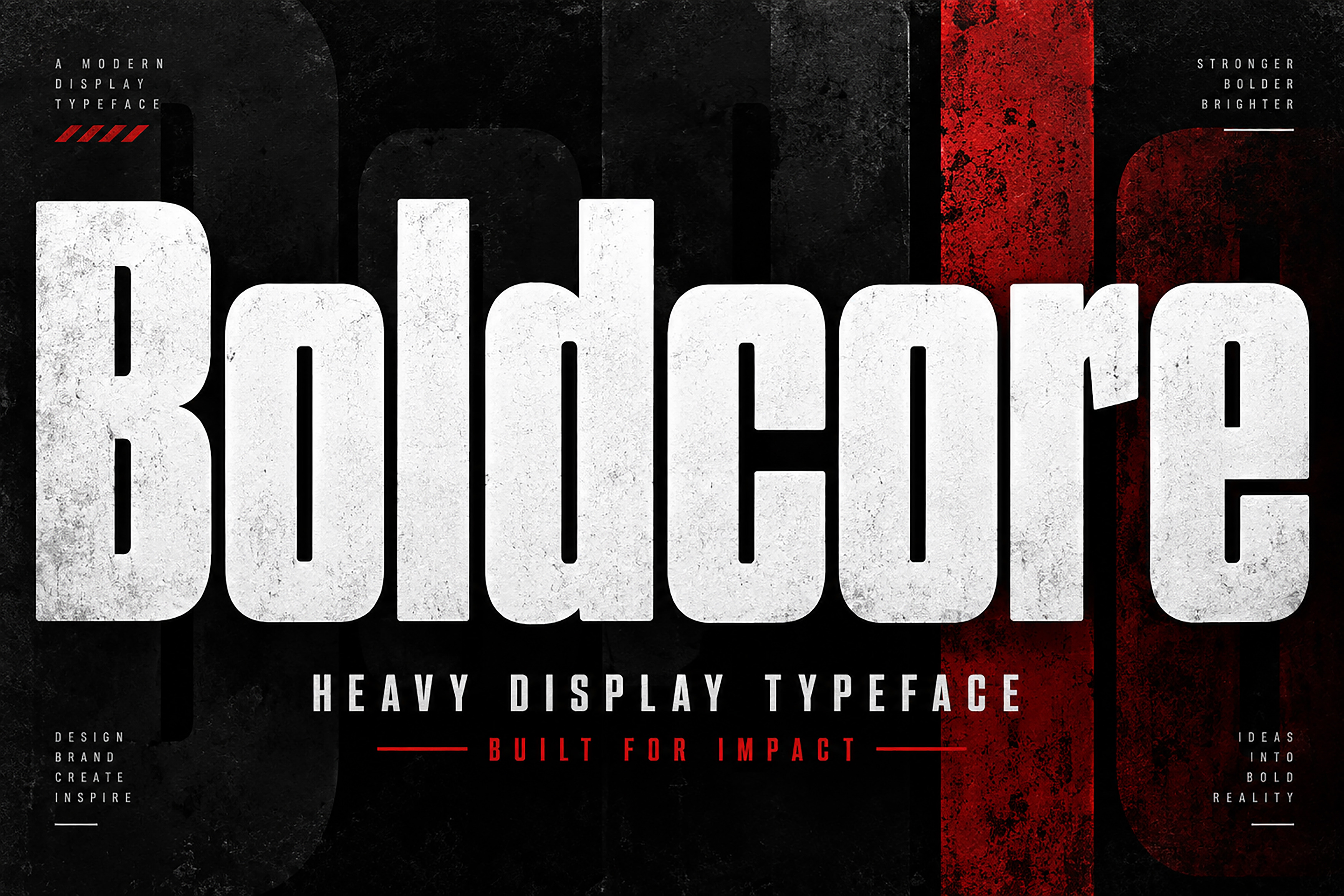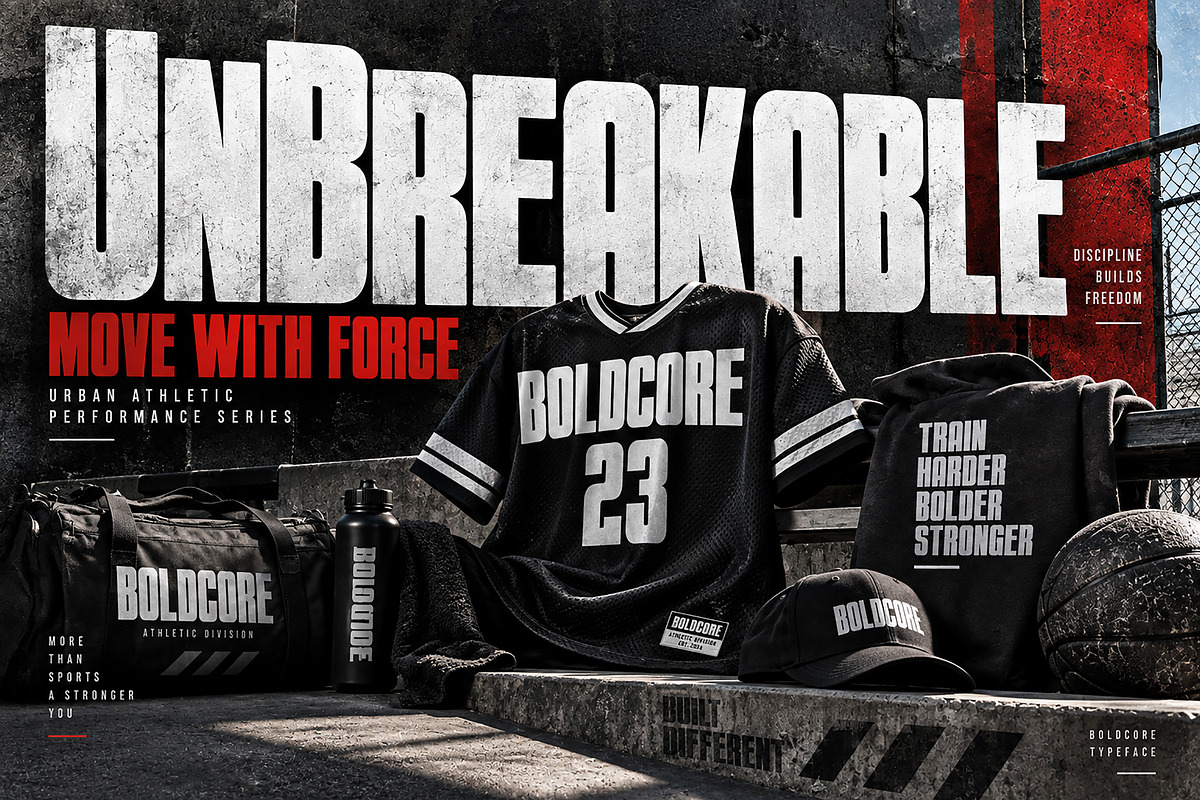
Boldcore — Heavy Display Font
Boldcore — Heavy Display Typography Built for Impact.
Boldcore is a powerful, bold display typeface designed to make every headline stand out. With its heavy weight, condensed proportions, and strong geometric presence, Boldcore delivers a confident and impactful look across modern creative projects.
Perfect for branding, logos, posters, sports graphics, streetwear, apparel, packaging, advertising campaigns, magazine covers, merchandise, labels, headlines, and social media designs.
Its strong visual character makes Boldcore especially suitable for projects that need a bold, modern, urban, and attention-grabbing typographic style.
Logo & Brand Identity
Sports Branding
Streetwear & Apparel
T-Shirt & Hoodie Designs
Posters & Flyers
Advertising Campaigns
Labels & Stickers
Magazine & Editorial Design
Promotional Materials
Headlines & Display Typography
Font Name: Boldcore
Style: Bold Display / Condensed Sans Serif
Boldcore is built for designers who want typography with strength, presence, and instant visual impact.